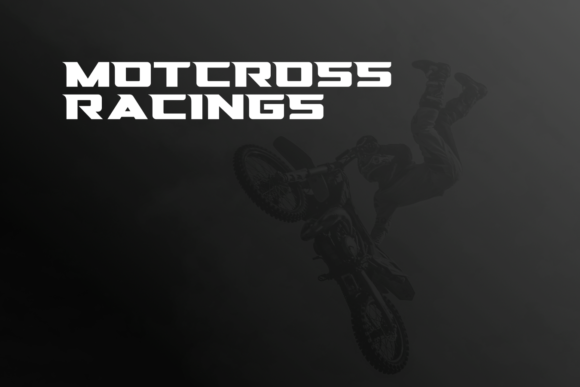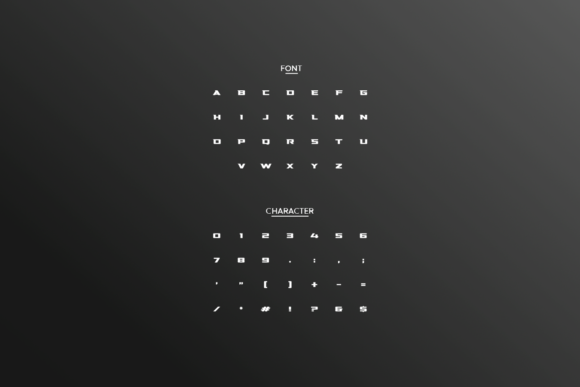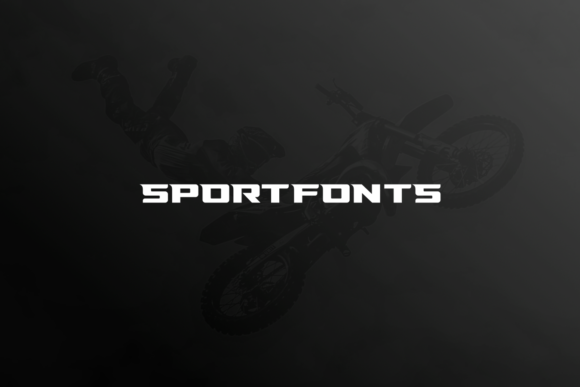
Brocers
Brocers: A Bold Slab Serif Font
Brocers is a thick-lettered and bold slab serif font that fits perfectly into any design. Created with sports designers in mind, it offers endless variations to explore. This font is ideal for adding a strong and dynamic touch to your creative projects.
Key Features of Brocers
• Bold Design: Offers a strong and confident look suitable for impactful designs.
• Slab Serif Structure: Features thick, rectangular serifs typical of slab serif fonts.
• Sports Theme: Perfectly crafted to meet the needs of sports-related designs.
• Versatile Application: Ideal for both print and digital media projects.
Ideal Uses for Brocers
Brocers’ unique characteristics make it particularly well-suited for:
When incorporating Brocers into your designs, consider these tips:
• Use for headlines or short blocks of text to showcase its bold style.
• Utilize its sports theme across various creative projects to enhance visual appeal.
Brocers is an excellent choice for designers looking to add a bold slab serif font to their typographic toolkit. Its ability to bring strength and style to various design projects makes it stand out in the world of typography. Whether you’re working on sports branding, creating layouts for magazines, or developing content that requires a touch of dynamism, Brocers offers the perfect blend of style and functionality.
Furthermore, Brocers’ unique design allows it to shine in various contexts. From vintage-inspired designs with a modern twist to more contemporary layouts that need a touch of uniqueness, this font can elevate your projects. Its striking yet functional style works particularly well in designs that require a thoughtful and engaging mood.
In conclusion, Brocers is a font that truly captures the essence of creativity and impact in typography. Its ability to work well in both minimalist projects and more elaborate layouts showcases its flexibility. For those looking to add a touch of unique charm to their work, Brocers can even enhance themed creations with its distinctive style. It’s the perfect choice for designers seeking to make a strong, stylish impact across a wide range of creative projects.